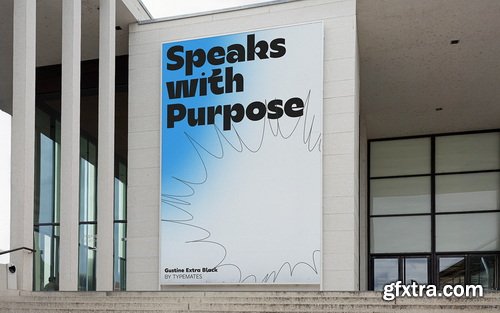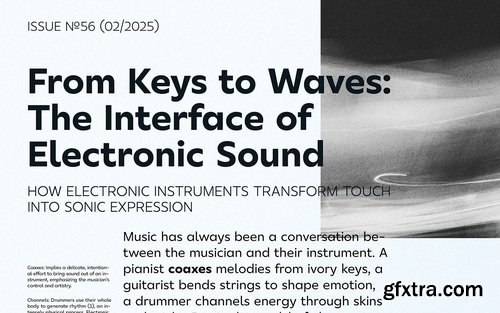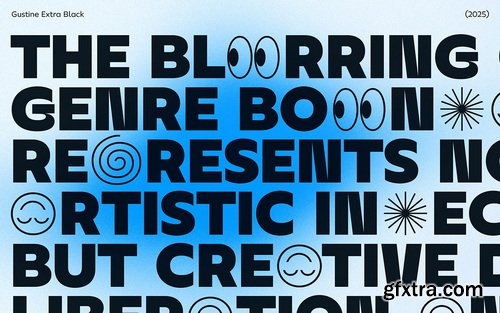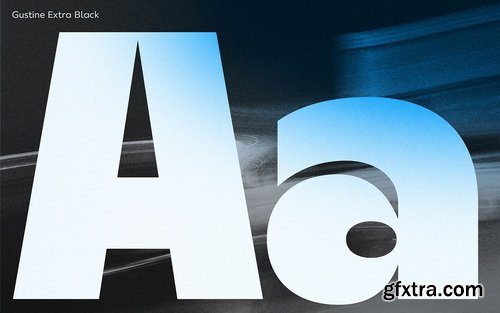
Gustine Font Collection
Gustine is a geometric typeface whose sharp details and broad proportions give it strength and warmth. With smooth curves and sleek design that elevate any application, from screens to signage, Gustine makes a clear, forceful statement with precision and a touch of flair
- At its core, Gustine is a clear and confident geometric typeface with sharp and dynamic details. Wide proportions, sharp terminals, high contrast and dynamic curves combine to create typography that’s calm but never bland.
- As a multi-purpose family, Gustine confidently claims its space, remaining robust and unflappable in text, almost unimpressed. Yet it never feels distant, thanks to well rounded curves in letters like C, G, p and a, and sweeping, pleasing stroke endings as in g, l, f and y. Precise, accessible, functional, Gustine’s seven weights make light work of a variety of texts. An alternate g and a double-storey a, open up additional flexibility. With its crisp and clear elegance, sharply tapered joins, and open counters, Gustine is suitable for a wide range of environments, from screens to signage.
- Gustine loosens up the rather austere geometric genre with a bit of emotional expression. Gustine’s Q and alternate g are the link to the creative explosion of Gustine Vaganza, which takes the core concept to an even more playful level.
- Providing versatile typographic support for any project, Gustine has seven weights. Like all TypeMates fonts, it features an extensive character set that supports up to 200 languages that use the Latin alphabet, as well as a rich selection of symbols, icons, arrows and dingbats. It also includes a fun collection of emoji for added flair.